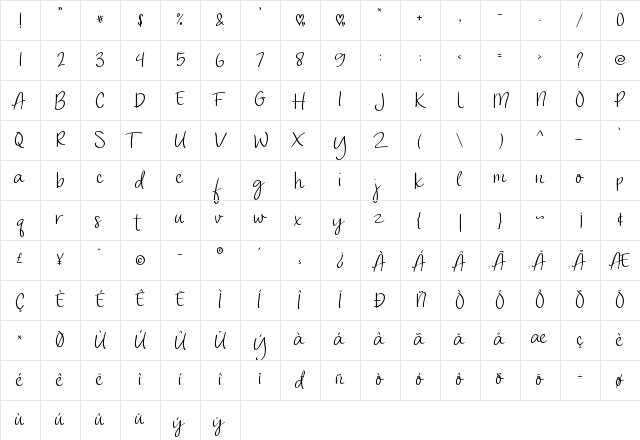
Give Love Regular Font Preview
Give Love Regular
Give Love Regular Font Details
| Designer | AMIN MARYONO |
Design Context for Give Love Typeface
Give Love is a composed and adaptable typeface that performs quietly and consistently across a wide range of design contexts.